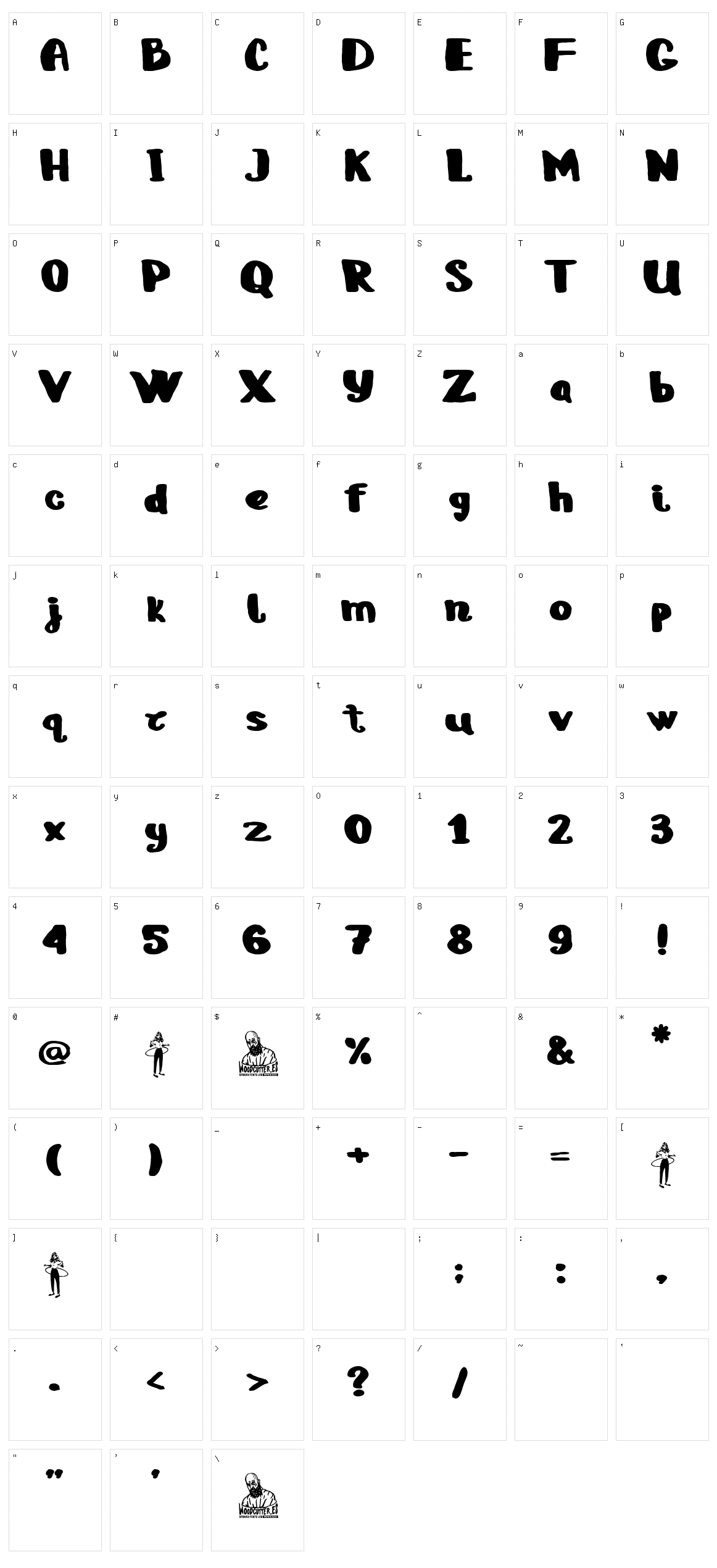
The free font Hey Lola! is carefully designed by Woodcutter, showcasing a thoughtful balance of creativity and usability and falls under the Cartoon font style. When you download the ZIP file, it contains only 75.1 KB of font files, making it lightweight and quick to download. Please review the license details below to understand permitted usage and distribution rights. If license information is not available, we recommend using this font for personal projects only or contacting the author directly for commercial usage permissions.